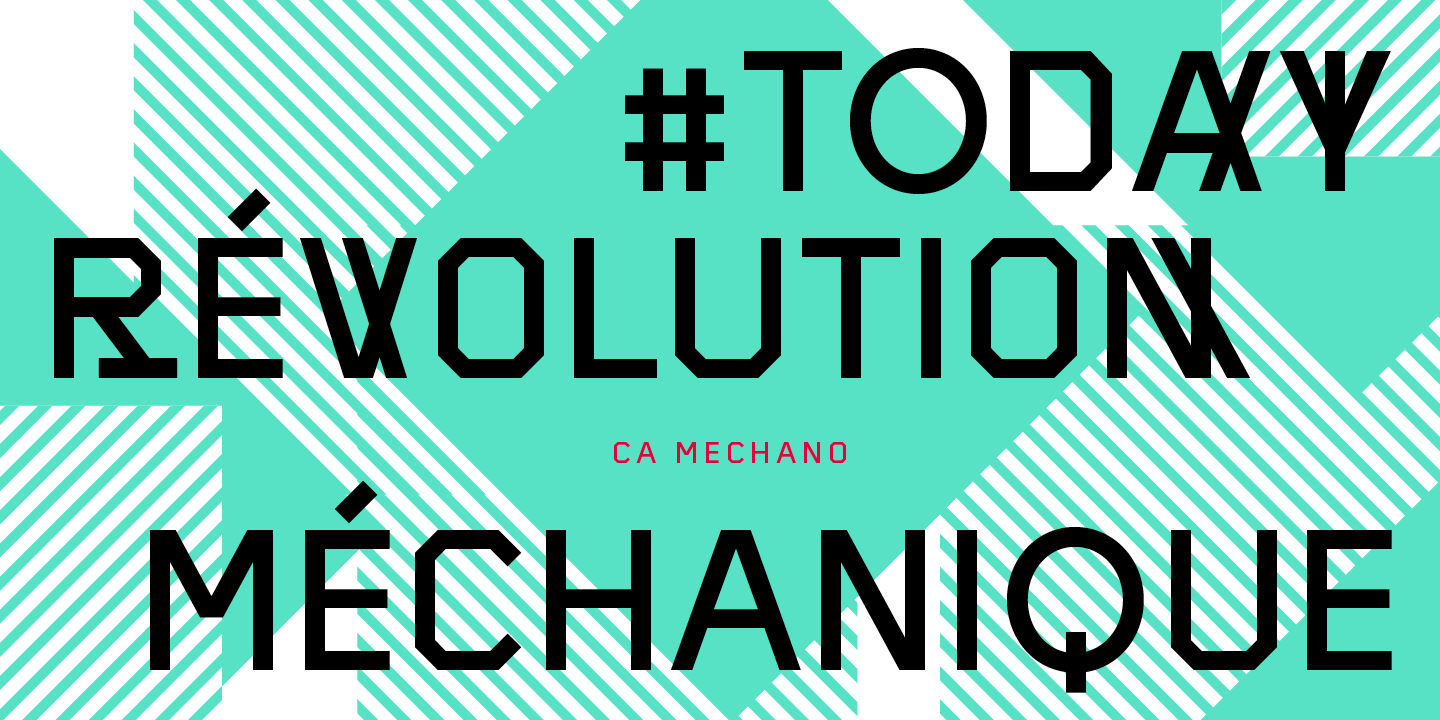
This industrial font is perfect for engineering companies, manufacturing branding, automotive industry materials, tech startup identities, mechanical design firms, industrial equipment marketing, construction company logos, and technical documentation. Its precise character makes it ideal for projects requiring mechanical accuracy and industrial strength aesthetics.
CA Mechano Font is exciting because it captures the essence of precision engineering with letterforms that mirror the exactness and reliability of mechanical systems and industrial manufacturing. The font features geometric construction, consistent spacing, and technical precision that reflects the methodical approach of engineering excellence. Its industrial character communicates durability, innovation, and the cutting-edge technology that drives modern mechanical advancement.
The CA Mechano Font family typically includes multiple weights and condensed variations, along with technical symbols, engineering icons, and mechanical decorative elements. Many versions feature specialized glyphs for measurements, technical notation, and industrial applications that enhance its utility for professional engineering communications.
Whether you're developing industrial brands, technical presentations, or engineering-focused marketing materials, CA Mechano Font Free Download provides authentic mechanical credibility with contemporary functionality. This typeface transforms standard communications into precision statements that resonate with engineers, manufacturers, and technical professionals who appreciate methodical craftsmanship and innovative solutions. Its distinctive character adds immediate industrial authority to any project while maintaining exceptional readability, making it an essential resource for companies and professionals working in CA Mechano Font Free Download and the dynamic world of mechanical engineering and industrial innovation.